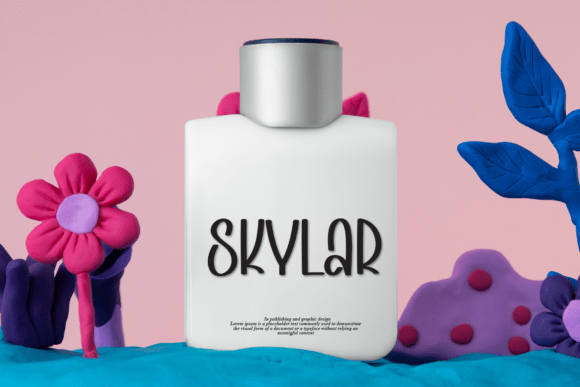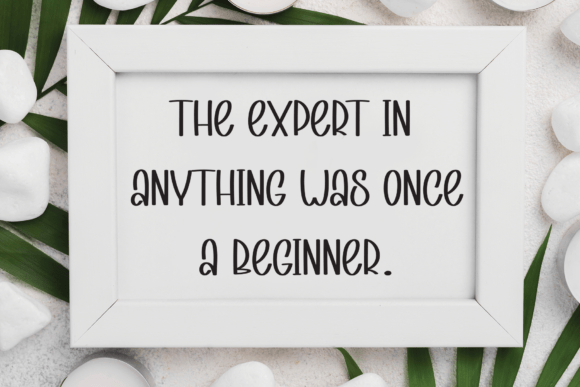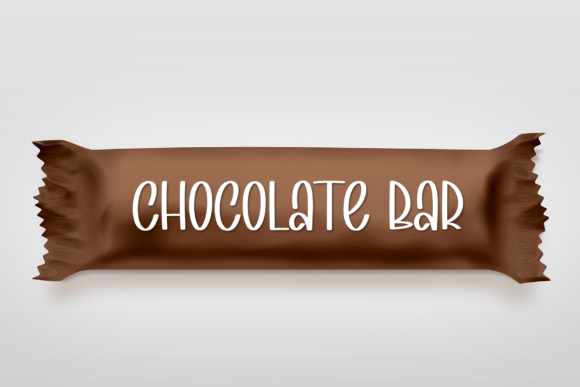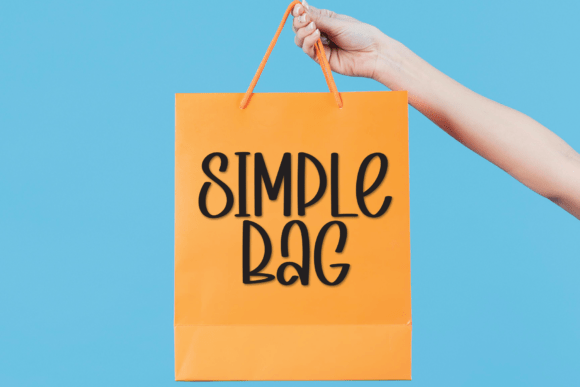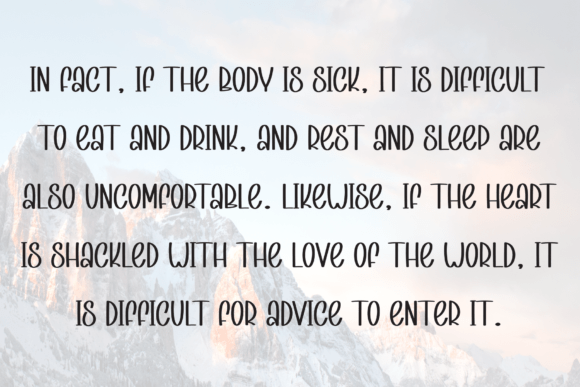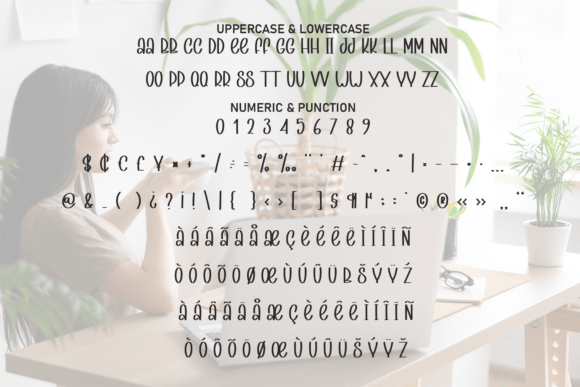
The Perfect Match for Your Creative Space
You’ve spent hours brainstorming, sketching, and perfecting your design – and then, it hits you: the perfect font to bring it all together. The moment when all the elements fall into place, and your creation starts to feel truly alive. For designers, this ‘aha’ moment is a rush like no other, and it’s exactly what the Home Office Font is designed to evoke.
This casual and neat display font is more than just a pretty face – it’s a trusted companion for your branding, headlines, and everyday designs. With its clean structure and approachable style, the Home Office Font brings warmth and clarity to your projects, making every message feel genuine and inviting.
Key Features of Home Office Font
- Unique Characteristics: Home Office Font features a clean, modern design with subtle rounded edges, making it easy on the eyes and reducing visual fatigue.
Designer Review: Home Office Font
Overall, I was excited to dive into the Home Office Font, hoping to find the perfect solution for my work-from-home needs. Here’s what I found:
- Modern and clean design: The font is sleek and professional, making it perfect for presentations, reports, and other business-related materials.
- Easy to read: The font is highly legible, even at smaller sizes, which is a must for any font used in a home office setting.
- Good for headings and titles: The font has a nice weight and contrast, making it great for headings and titles that need to stand out.
- Limited font family: The font only includes a few weights and styles, which can limit its versatility in certain design situations.
- Not ideal for body text: While the font is great for headings, it can feel a bit too bold and attention-grabbing for larger blocks of body text.
Overall, I think the Home Office Font is a solid choice for certain design projects, but it may not be the best fit for every situation. With a bit more variety in font weights and styles, I think it could be a top contender for home office fonts.
Tips for Getting the Most Out of the Home Office Font
Here are some tips to help you get the most out of the Home Office Font:
– Use it consistently throughout your design to create a cohesive look.
– Pair it with complementary fonts to add visual interest.
– Experiment with different font sizes and styles to create hierarchy and emphasis.
The Home Office Font is ideal for use in:
– Office branding and marketing materials.
– Productivity and organization templates.
– Educational materials and presentations.
– Any design project that requires a clean and professional look.
Alternatives to Home Office Font
Lato is a modern sans-serif font designed for digital use. It’s suitable for body text, headings, and titles. Lato is a great choice when you need a clean and legible font that works well on both desktop and mobile devices.
Compared to Home Office Font, Lato is more modern and has a more subtle feel. While Home Office Font is a bit more conservative, Lato is more versatile and can be used in a wide range of contexts.
Montserrat is a geometric sans-serif font that’s perfect for digital use. It’s highly legible and works well in both print and digital media. Montserrat is ideal for body text, headings, and titles, and can be used in a variety of contexts, from corporate to creative projects.
What is the recommended font size for using Home Office Font in documents?
The recommended font size for using Home Office Font in documents is between 10pt and 14pt. This font size range provides optimal readability and clarity for most users. However, you can adjust the font size to suit your specific needs and preferences.